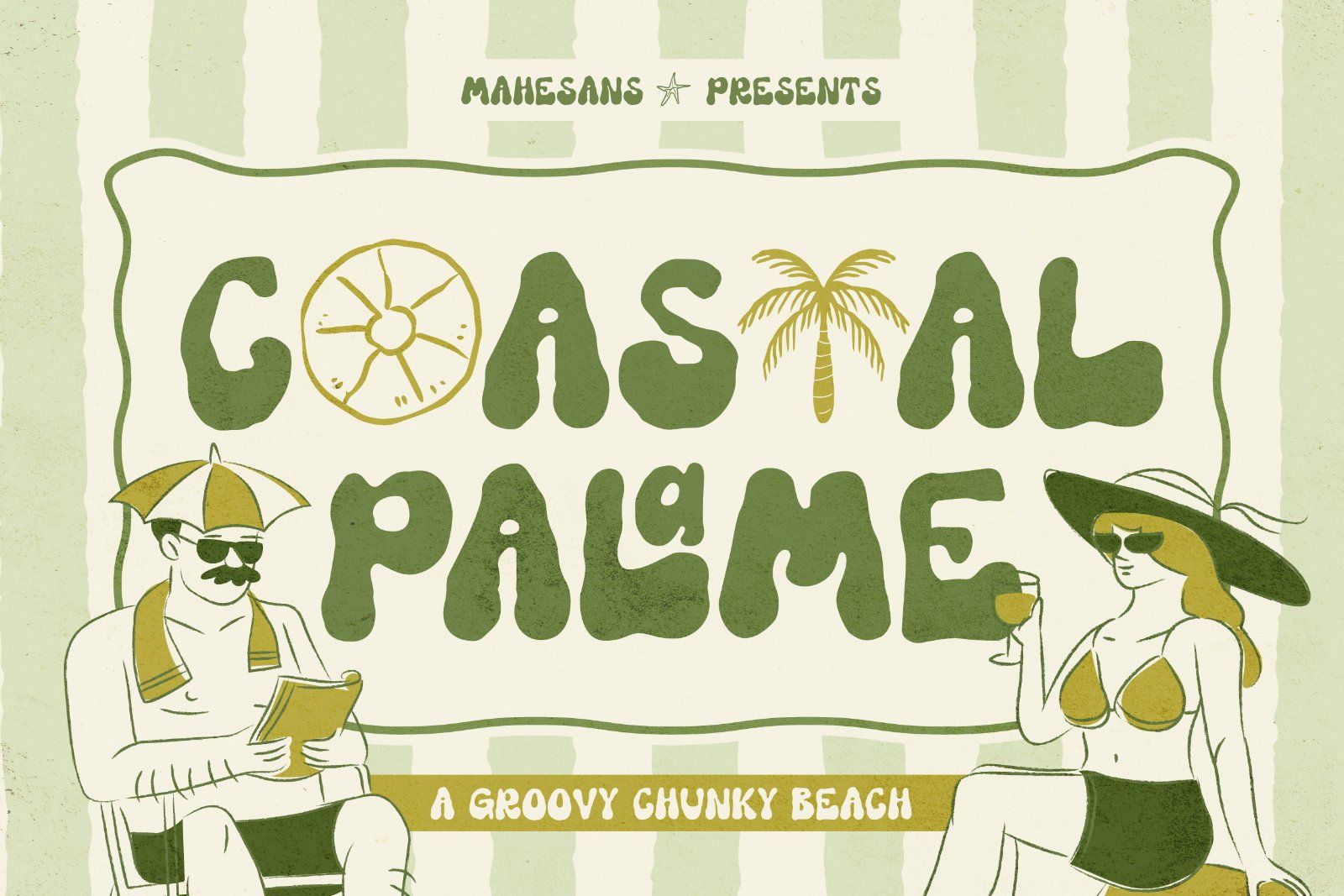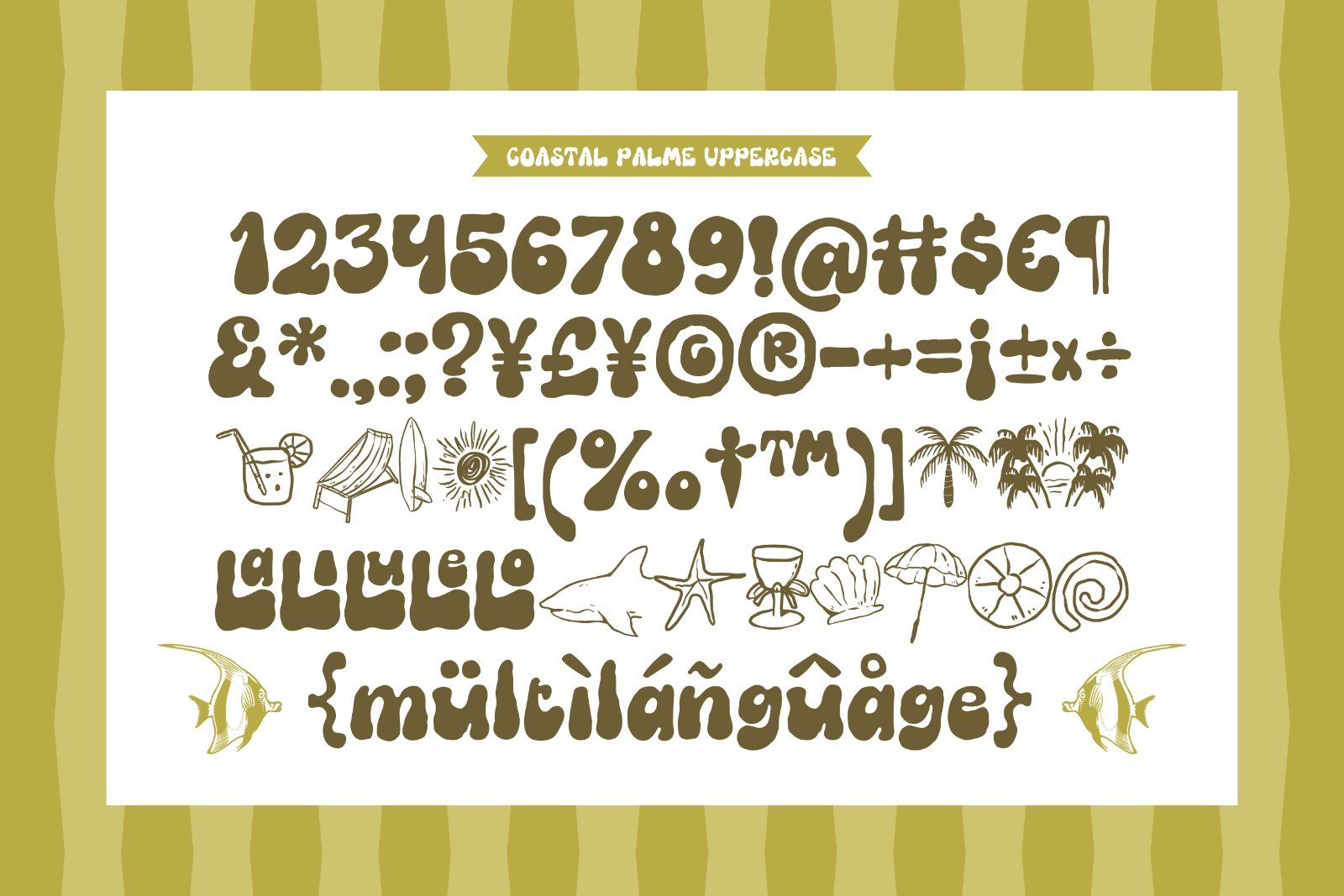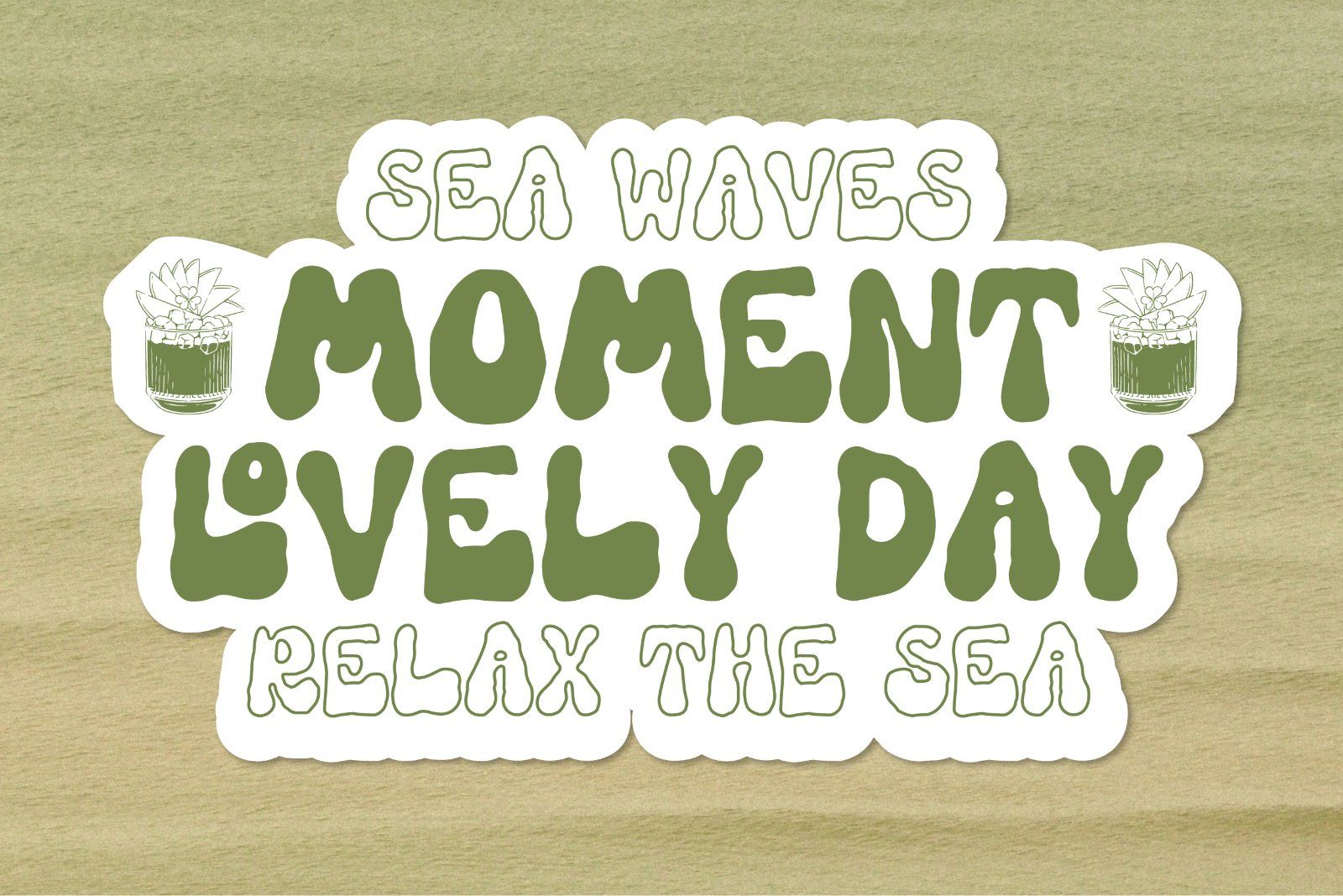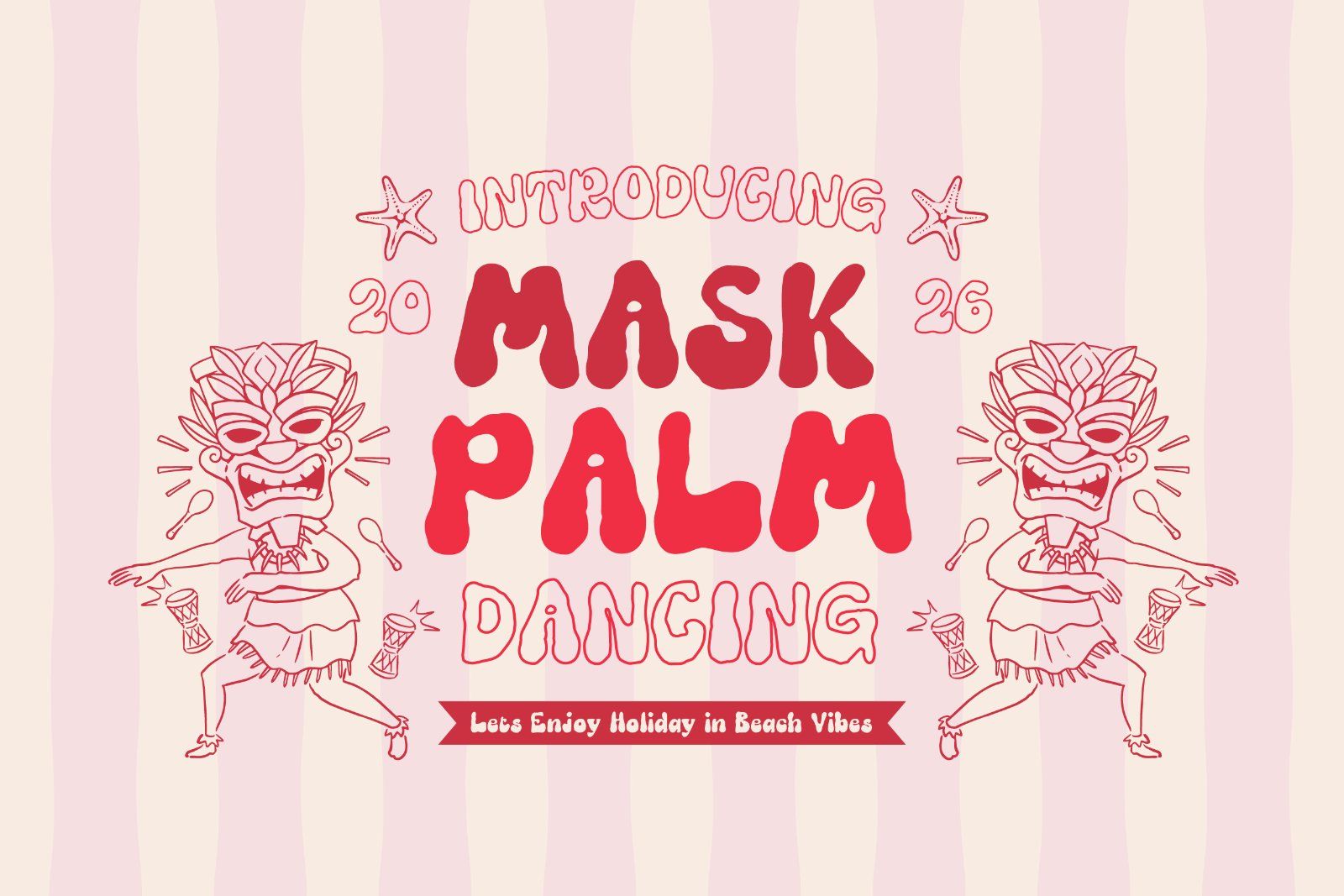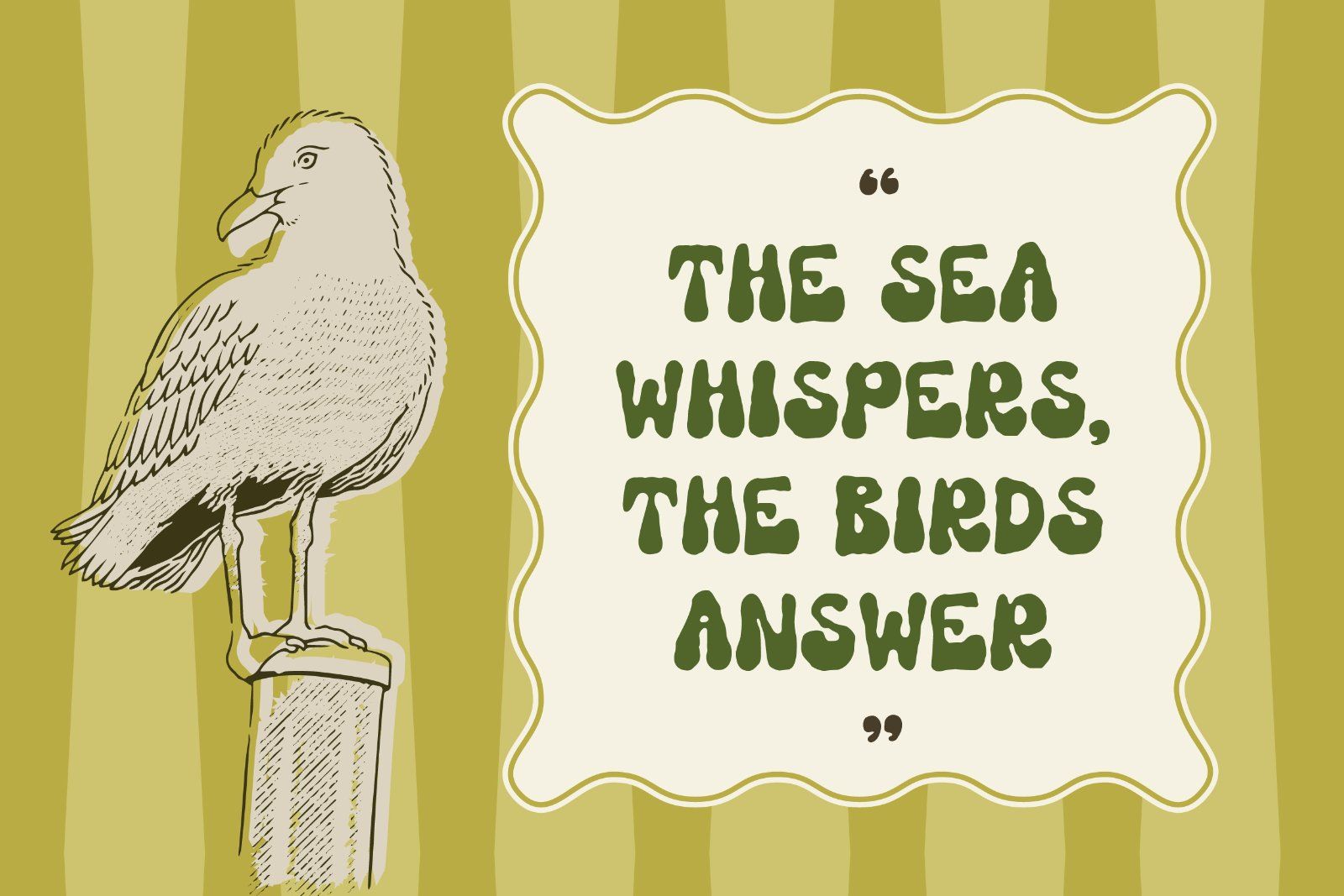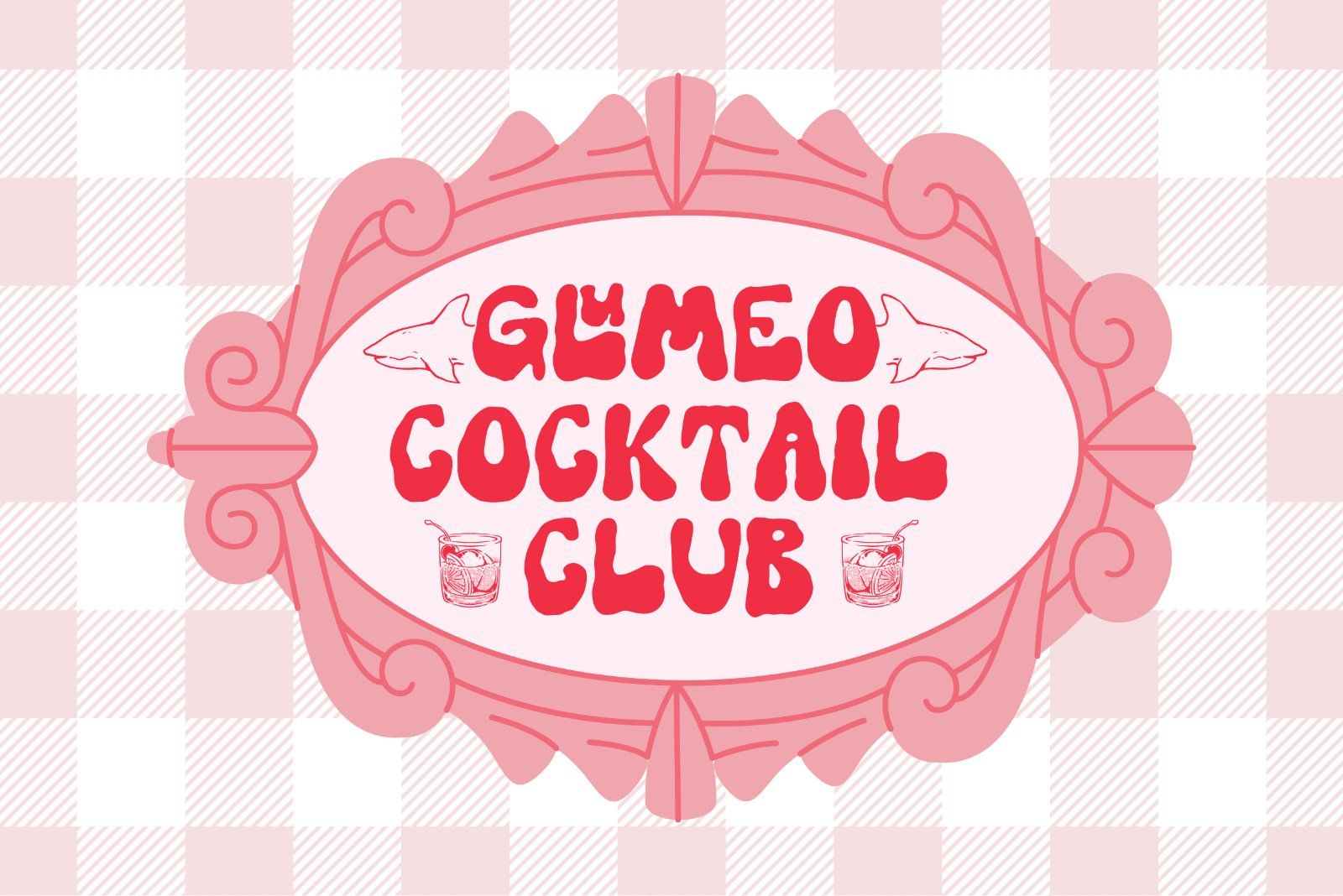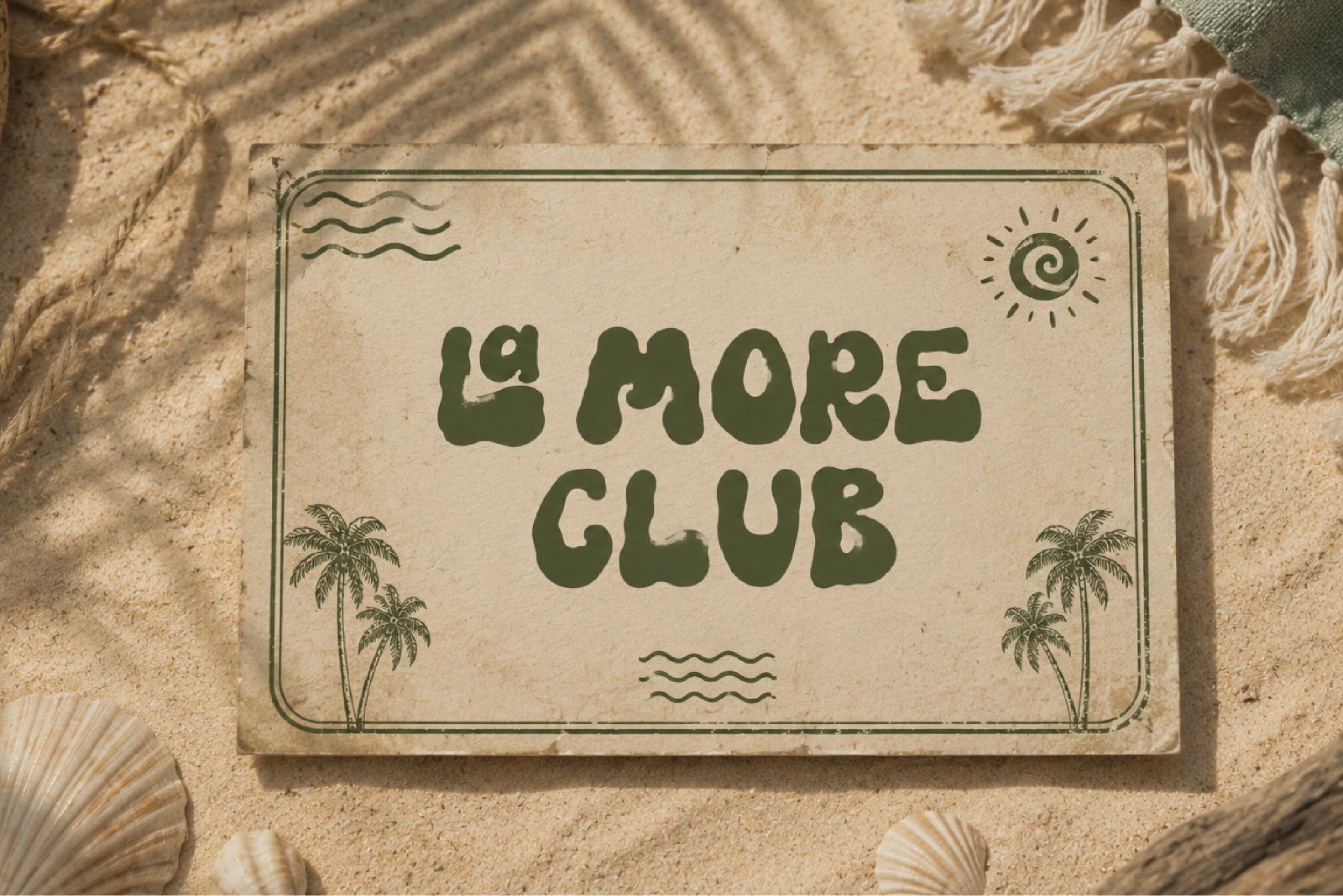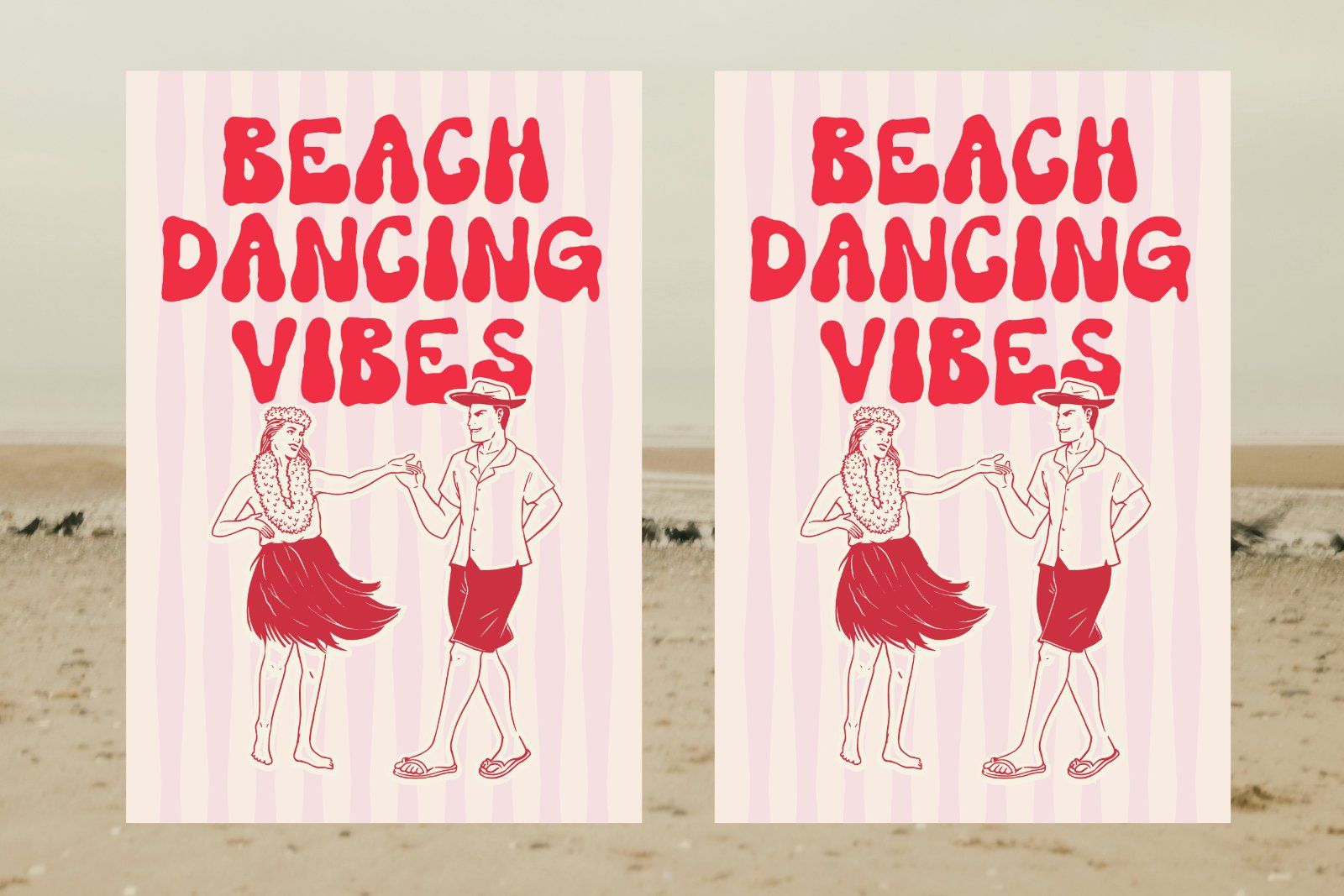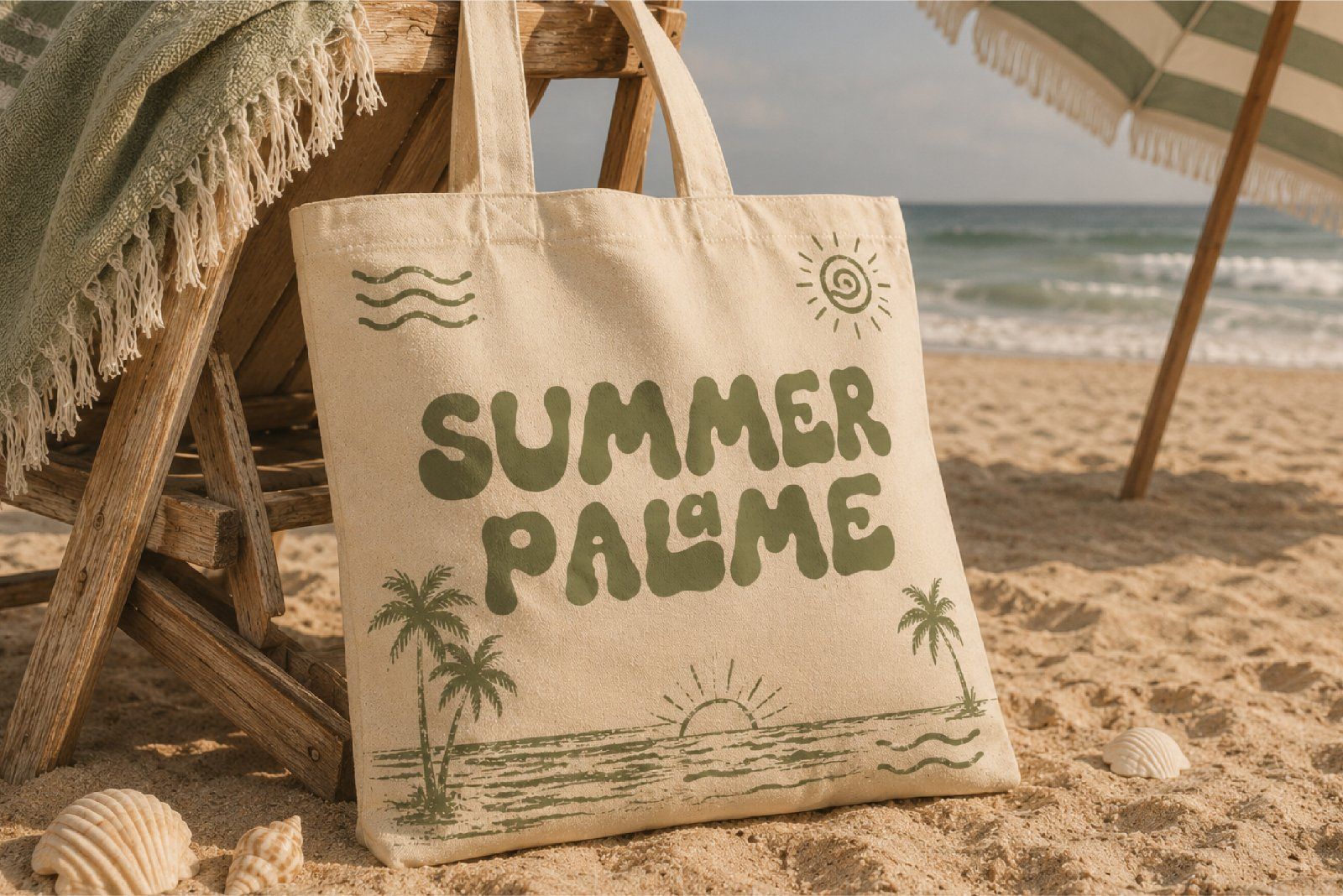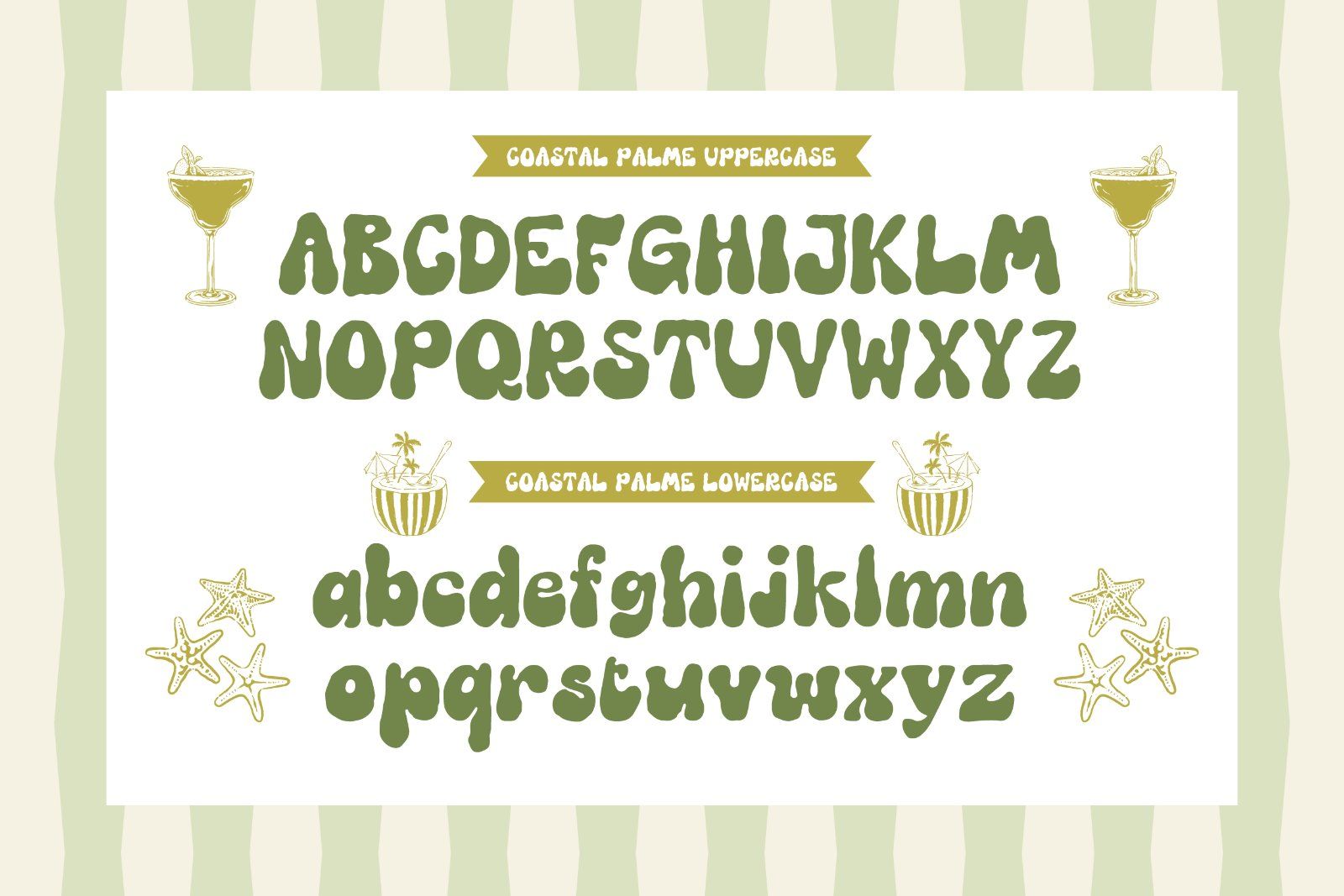
Coastal Palm is a groovy chunky display font inspired by sunny beaches, tropical holidays, retro surf culture, and carefree summer vibes. With its bold, organic shapes and playful hand-drawn character, this typeface instantly adds a fun and nostalgic personality to any design.
Its chunky letterforms make it perfect for eye-catching headlines, while the quirky and slightly wobbly shapes bring a handmade feel that works beautifully with vintage and contemporary aesthetics.
Coastal Palm is perfect for:
• Beach & summer branding
• Surf shop designs
• Tropical posters
• Vacation & holiday graphics
• T-shirt designs
• Beach party invitations
• Travel branding
• Kids & playful designs
• Stickers & merchandise
• Packaging & labels
• Posters, signage & editorial headlines
• Ligatures
• Multilanguage
Whether you're creating a summer collection, beachwear brand, tropical campaign, vacation poster, or retro-inspired merchandise, Coastal Palm is made to bring that laid-back holiday energy straight into your typography.